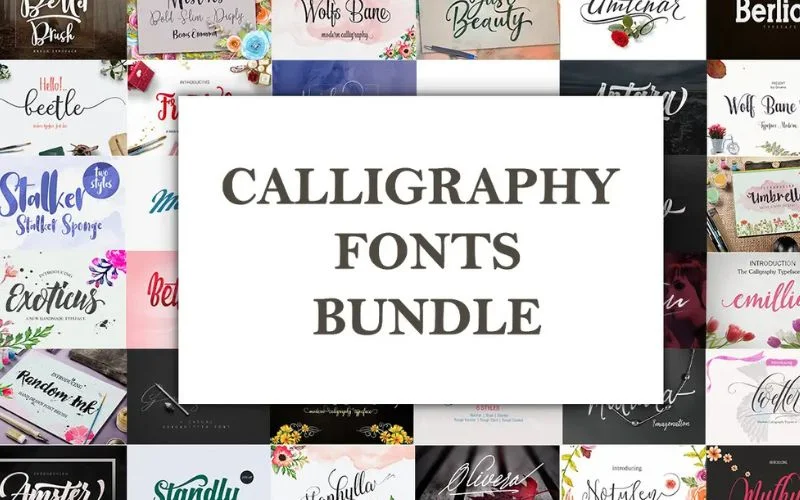
Calligraphy Fonts Bundle
The Calligraphy Fonts Bundle is a collection of 54 fonts across 40 unique typefaces.
It includes a variety of styles like; scripts, brush, handwritten, display, and serif fonts, complete with swashes.
It also contains ligatures, contextual alternates, ornaments, and international character support.
In this Calligraphy Fonts Bundle the fonts are versatile and beautifully crafted, suitable for both print and digital designs.
This Calligraphy Fonts Bundle Includes:
Amster
Amtenar
Antara
Aromatic
Aslang Barry
Beetle
Berlian G
Bettaria Script
Britany
Catfish script
Emillia Script
Exoticus
Fameliya
Freestyle
Groen-Studio
Heirley-Script
Hunting-Object
Just Beauty
Justin
Malvina
Maphylla
Matador
Melani Script
Misteris )
Montala script
Muthya
Mutiara
Notulen
Olivera
Random Ink
Ringstone
Stalker
Standly
Sweitenia
Twetter
Umbrella
Wamelo
Wolf Bane Bold
Wolfsbane